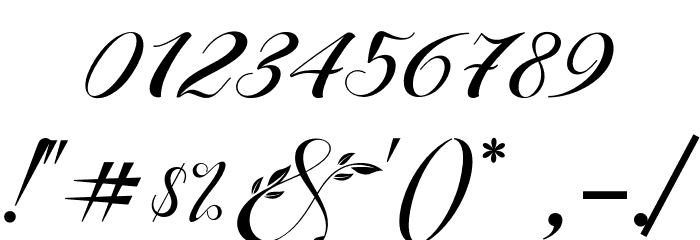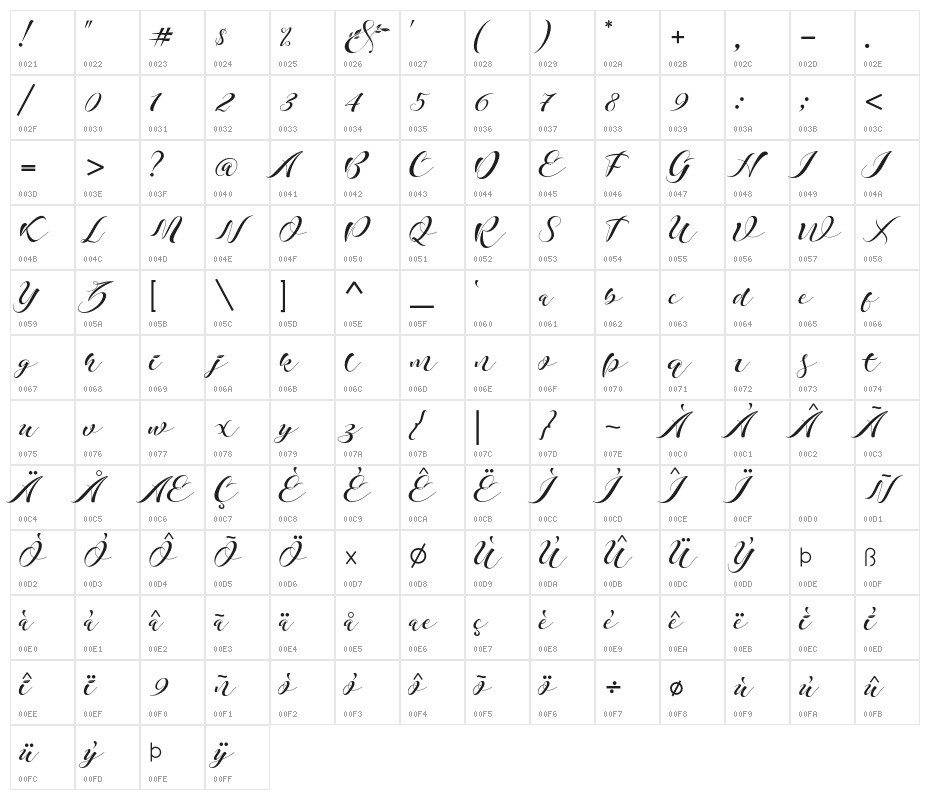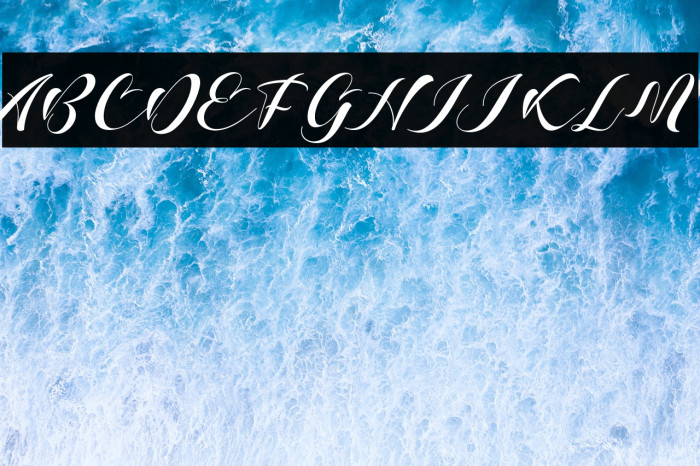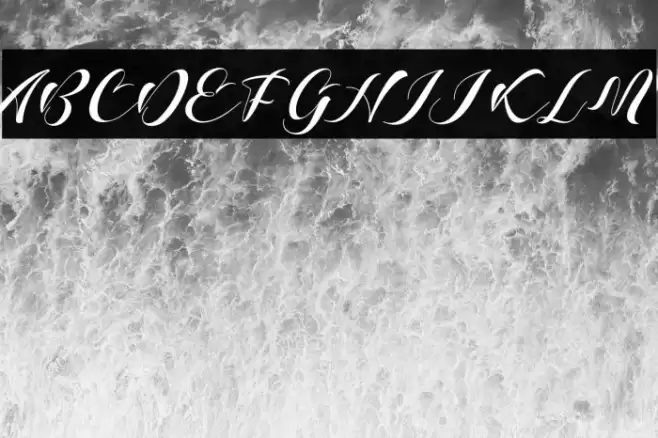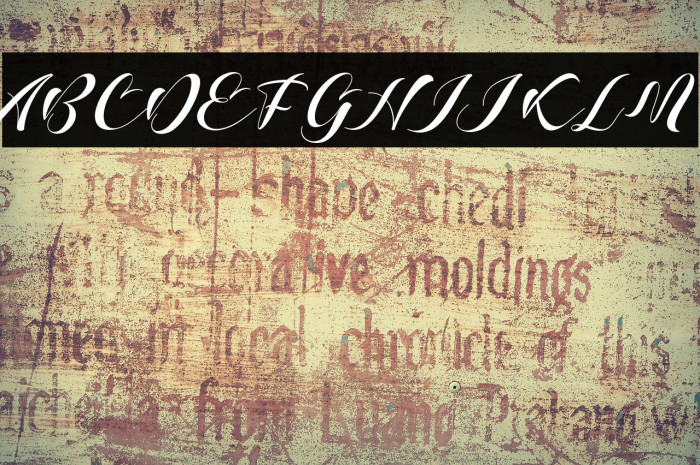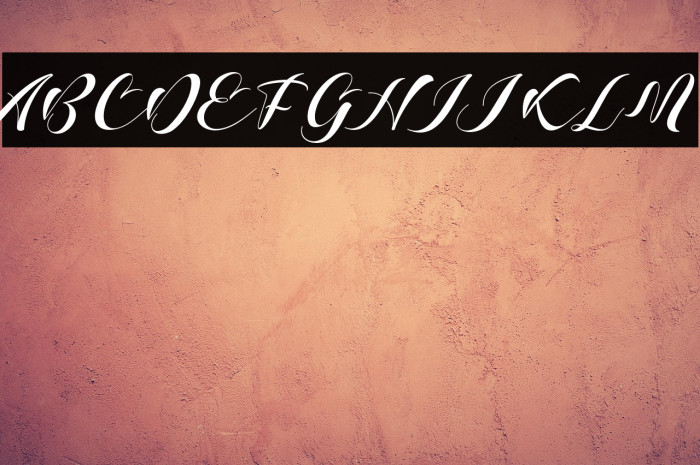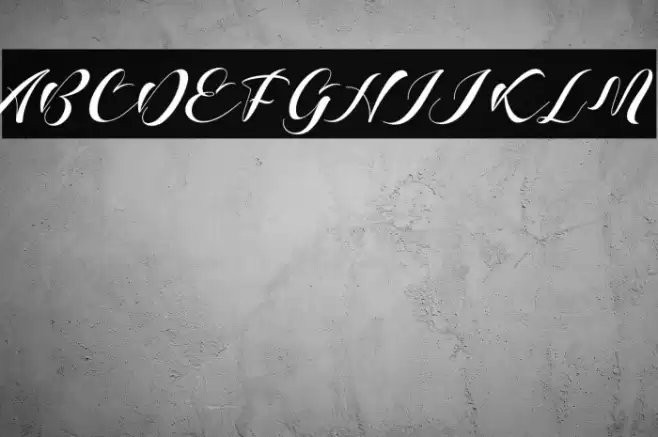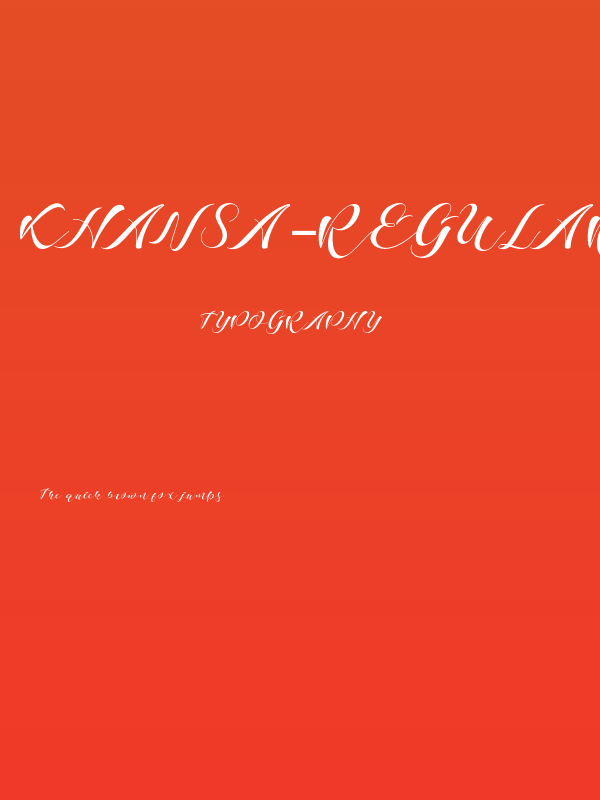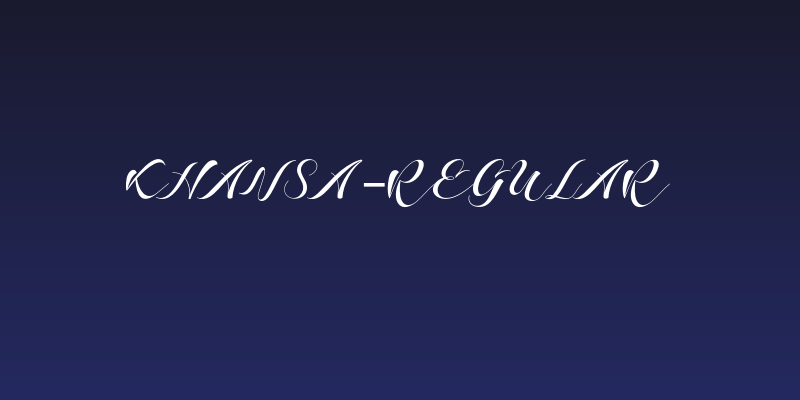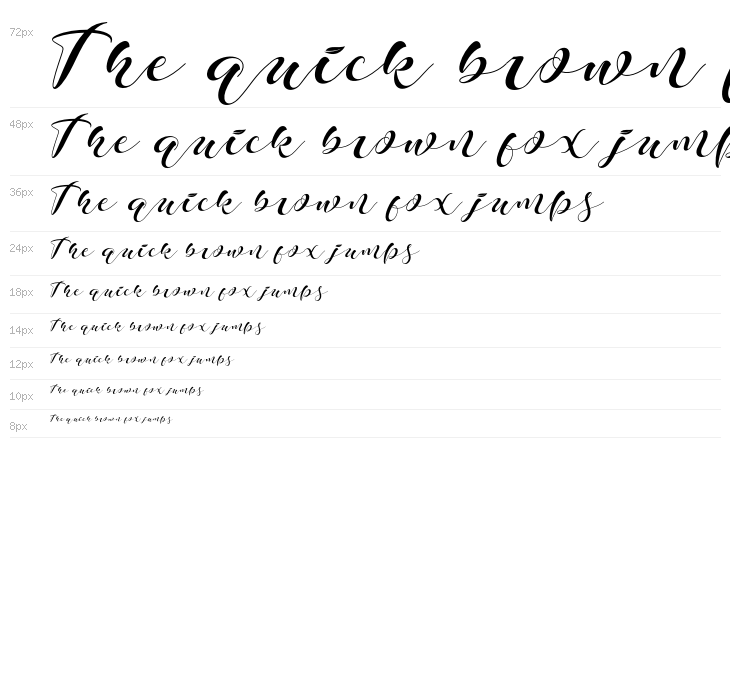
Khansa-Regular Font
Khansa-Regular Description
This elegant script font features flowing, cursive letterforms with a modern twist. The uppercase letters are characterized by sweeping curves and flourishes, while the lowercase letters maintain a graceful continuity. The numbers and special characters are designed with the same fluidity, adding a cohesive look to the entire set. The font's high contrast between thick and thin strokes enhances its sophisticated appearance, making it suitable for formal and decorative uses. Its stylish and artistic flair is perfect for projects that require a touch of elegance and creativity.